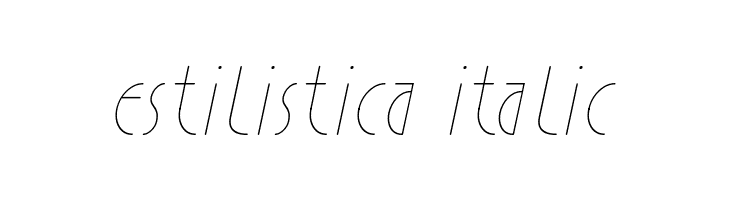
A sleek, modern font with elongated, thin strokes and a minimalist aesthetic.
A modern, minimalist font with elongated, thin strokes and a sophisticated style.
A sleek, italic font with thin, elongated characters and a modern, elegant style.
A sleek, modern italic font with thin, elongated characters and a minimalist style.